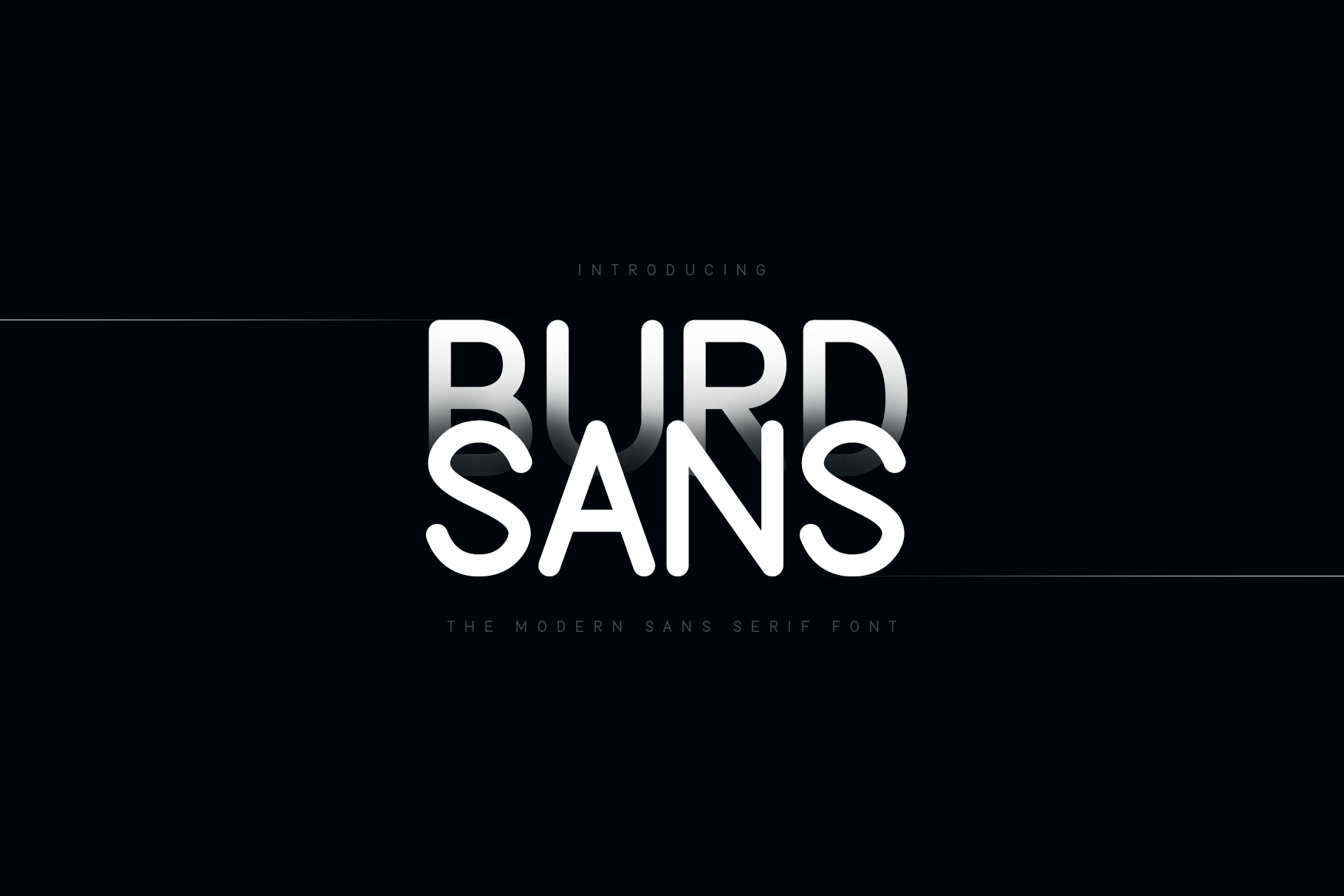
Burd Sans - The Multilingual Font
Burd Sans is a modern, simple & clean. Paired with other fonts or stand-alone, this font is perfect for logo design, displays, invitations, labels, signage, magazines, Instagram stories, and much more. It instantly gives your product a luxury feel.